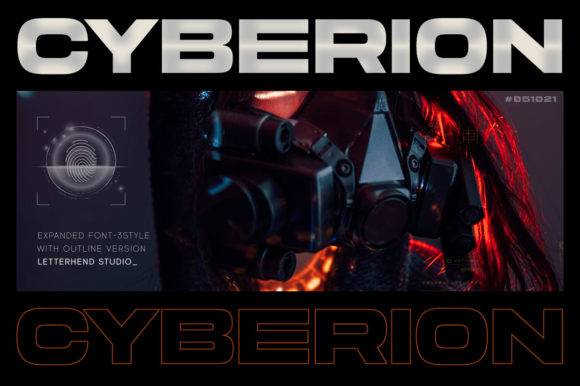
Cyberion Font
Cyberion is a cool, bold and thick lettered display font. It is ideal for writing web designs, business cards, or pretty much anything else that requires a futuristic touch.